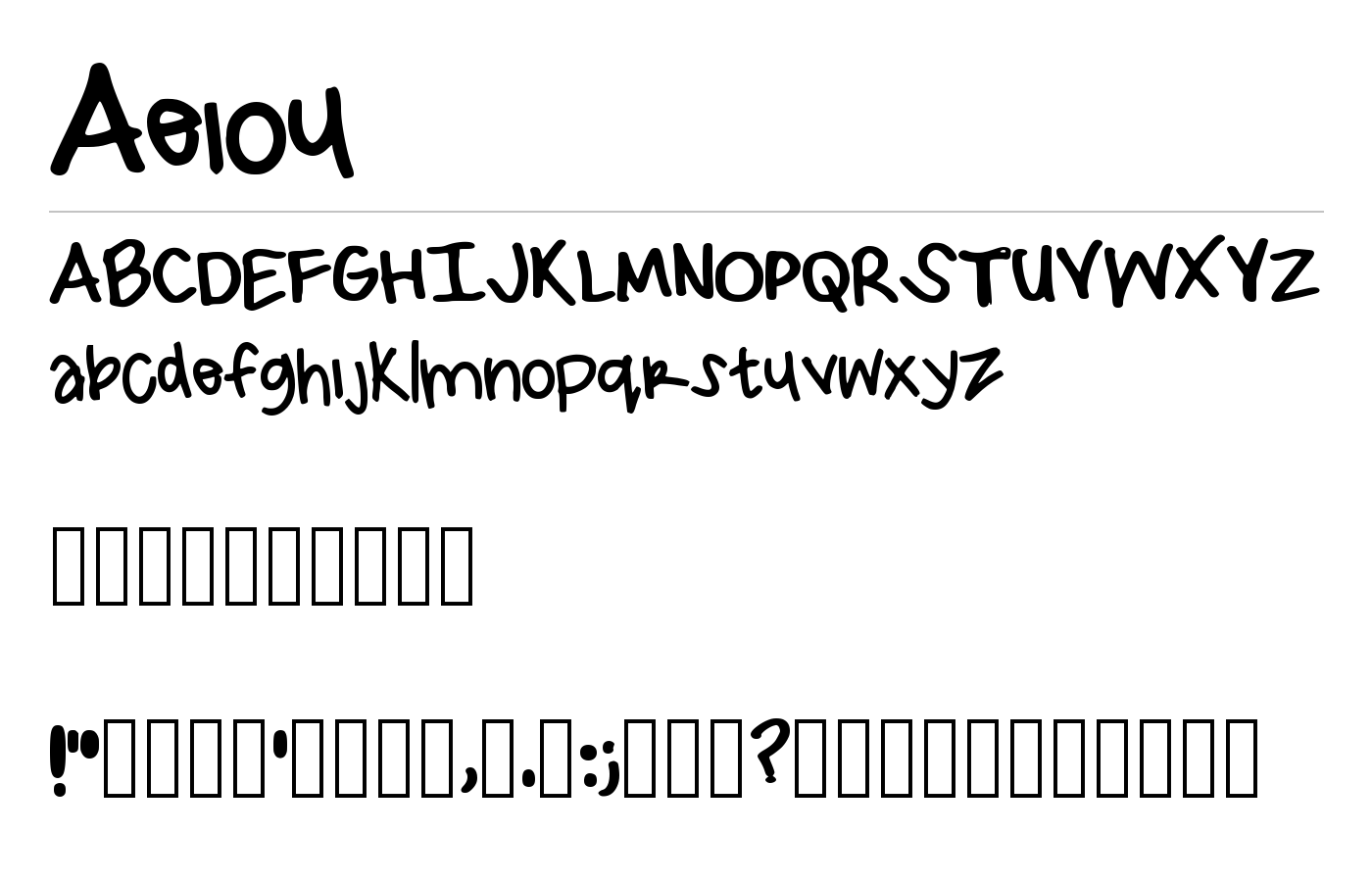
Aeiou Font is a playful, informal handwritten typeface with a casual, friendly vibe. Its irregular strokes and slightly uneven letterforms give it a lively, approachable personality, making it perfect for creative projects, children’s materials, or branding that aims to feel personal and fun. This font works best in headlines, invitations, and any context where a warm, human touch is desired.
Aeiou Font